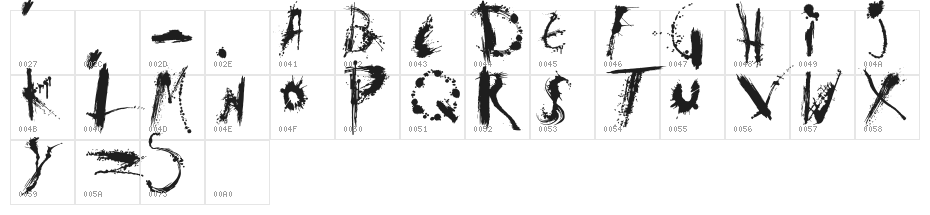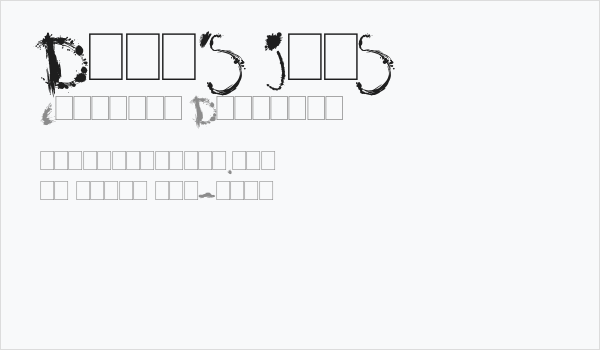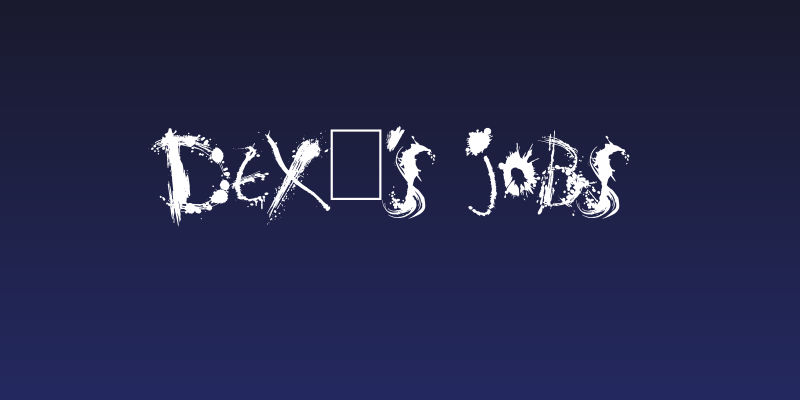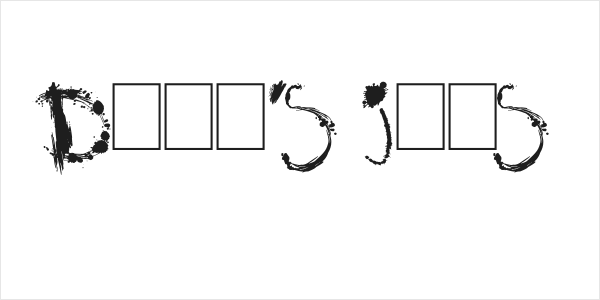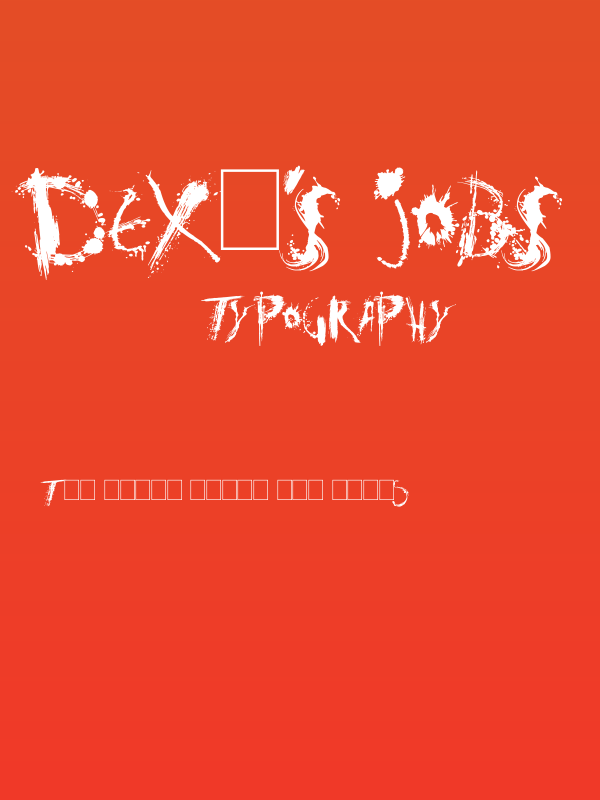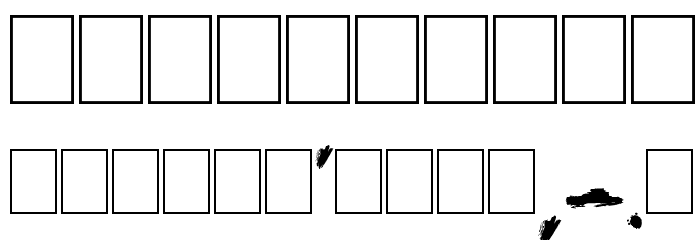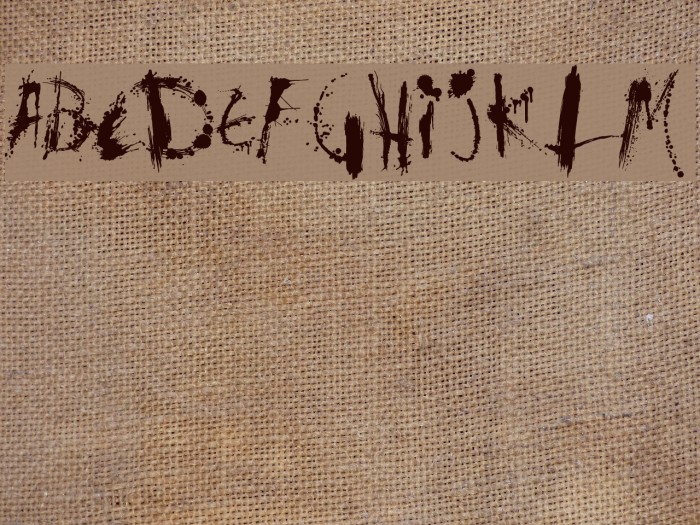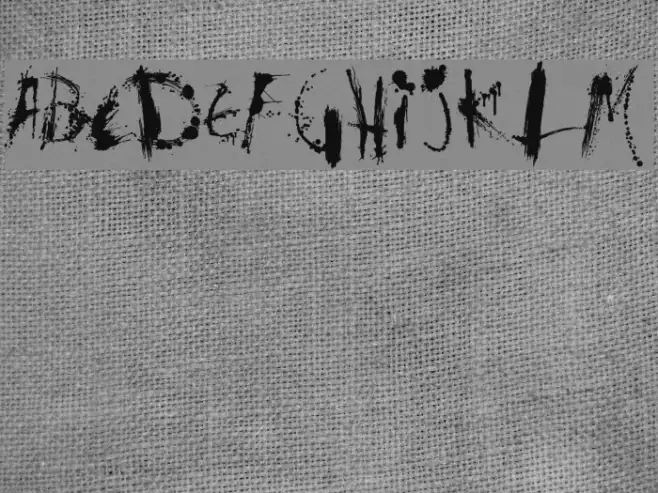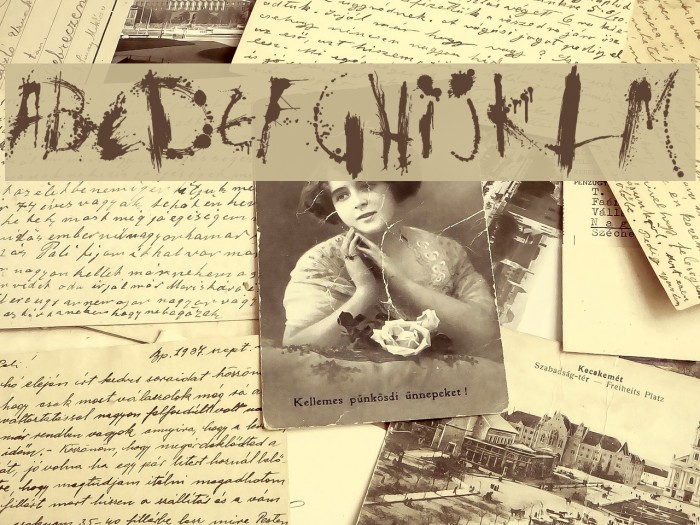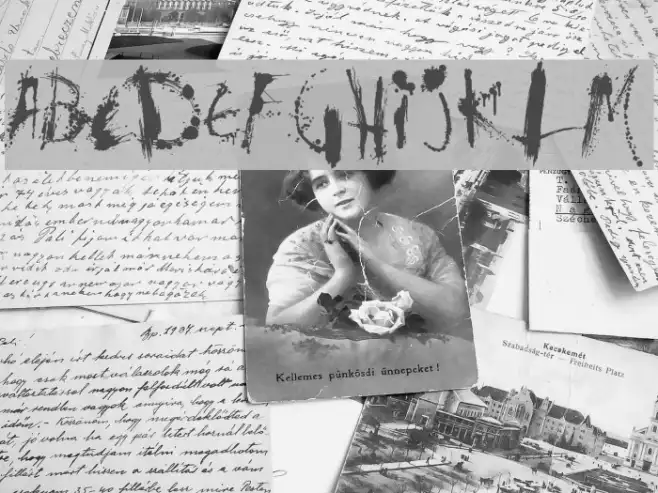
Dex's Jobs Font
Dex's Jobs Description
This font exhibits a highly expressive and artistic style, characterized by its splattered and textured appearance. Each letter seems to have been painted with a brush, giving it a raw and dynamic feel. The uppercase letters are bold and dramatic, with irregular edges and varying thicknesses that create a sense of movement. The lowercase letters maintain this artistic flair, though they are slightly more restrained in their form. The numbers and special characters continue this theme, ensuring a cohesive look across all elements. This font's unique design makes it stand out, perfect for projects that require a bold and unconventional aesthetic.
| Use Case | Headlines, Logos, Artistic projects |
| Proposed Projects | Ideal for album covers, posters, art projects, and any design requiring a bold, artistic touch. |